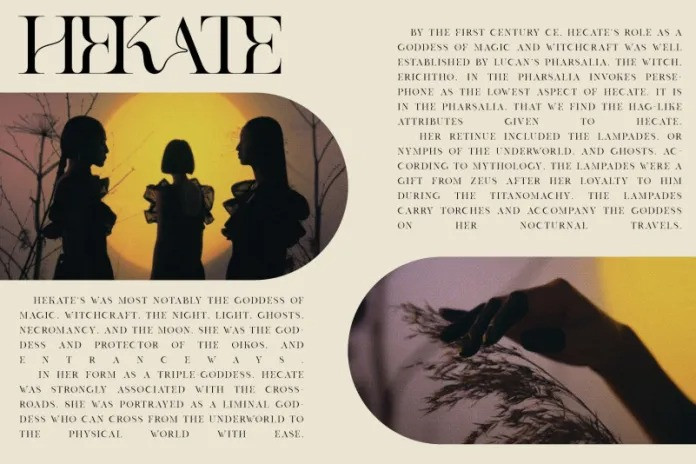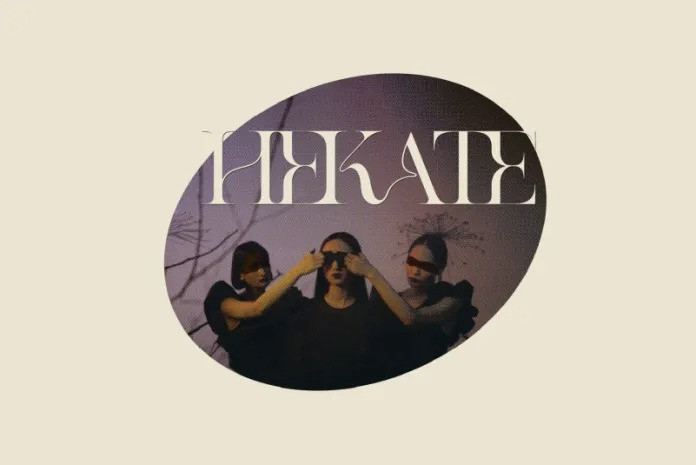
Hekate Font
Looking for a unique, stylish, and fun font for your next project? Hekate Serif Font is a modern take on a classic serif style. The stylised capitals add romantic curves and a rebellious elegance to the strong standard character set. Add it confidently to your favorite creations and let yourself be amazed by the outcome generated.  Try this font soon and have a nice day